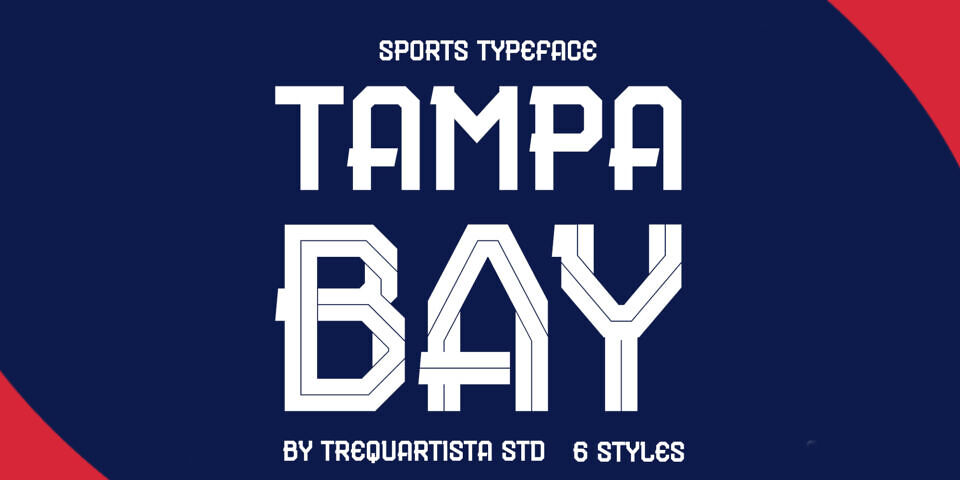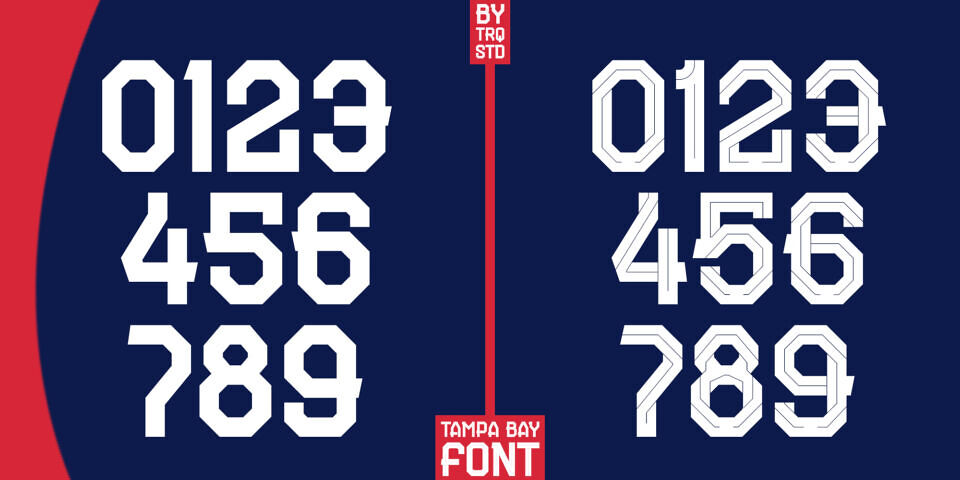
Tampa Bay Font Family
Designed by Studio TRQ, the Tampa Bay font is a specialized sports-themed typeface tailored for basketball aesthetics. With six distinct styles available in the family, it offers versatile options for jersey designs, athletic branding, and team-related creative projects.